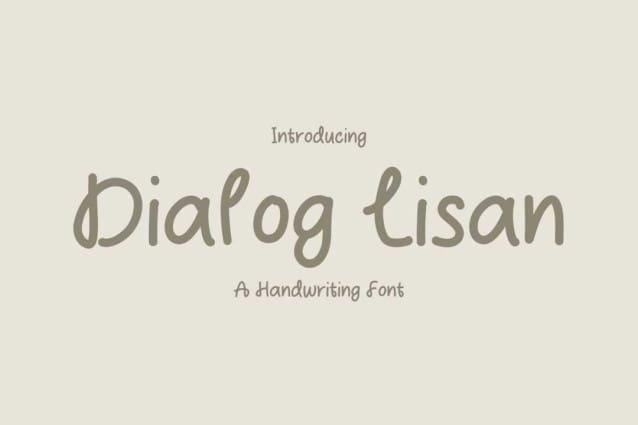
Dialog Lisan Font
Dialog Lisan Font is a cute handwritten font, created with the help of a great pen. Whether you are looking for fonts for Instagram or calligraphy scripts for DIY projects, this font will turn any creative idea into something that really stands out.